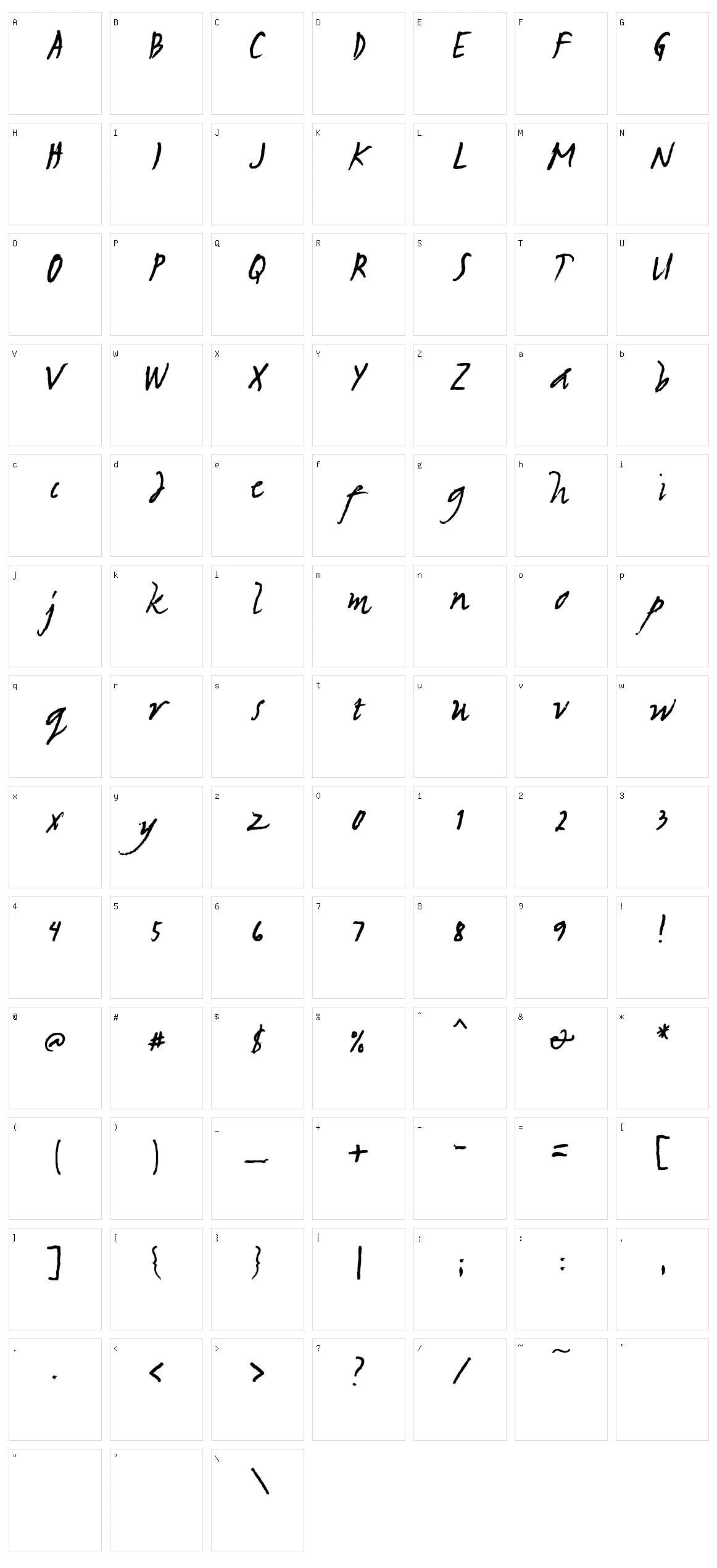
The free font Sulatko is carefully designed by James Paul Fajardo, showcasing a thoughtful balance of creativity and usability and falls under the Script font style. When you download the ZIP file, it contains only 35.61 KB of font files, making it lightweight and quick to download. Please review the license details below to understand permitted usage and distribution rights. If license information is not available, we recommend using this font for personal projects only or contacting the author directly for commercial usage permissions.